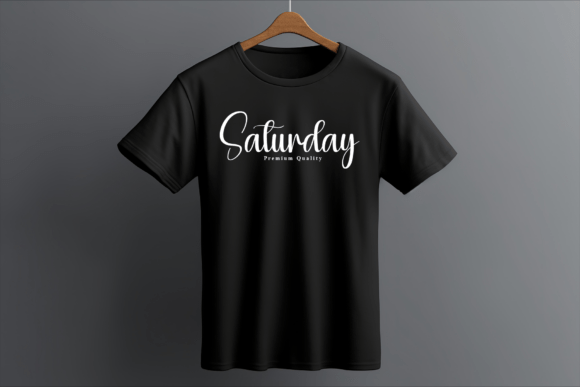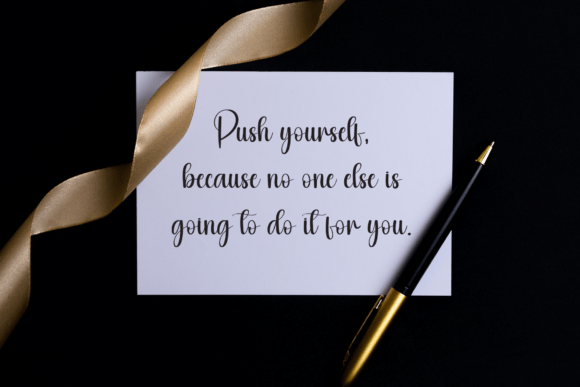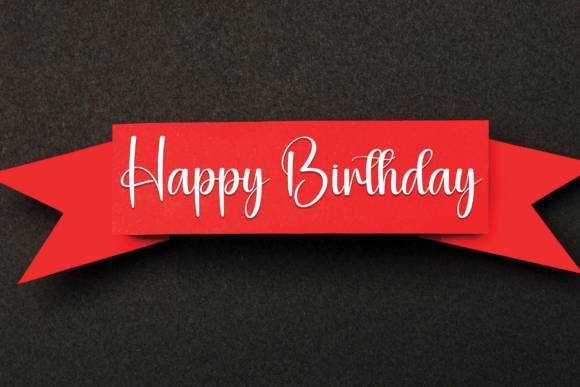
Blacksweety Font
special creative products for you, our products will give you an extraordinary experience.the latest style letters are perfect for wall displays, wedding invitations, social media post logos, advertisements, product packaging, product designs, labels, photography, watermarks, invitations, stationery, and any project that requires taste handwriting.the file you will get is: • OTF file • Works on PC & Mac • Simple installation • Can be accessed in Adobe Illustrator, Adobe Photoshop, Adobe InDesign, and even works in Microsoft Word.• Long-term support, free features, and bug fixes • Encoded PUA Character – Can be accessed completely without additional design software.Enjoy!